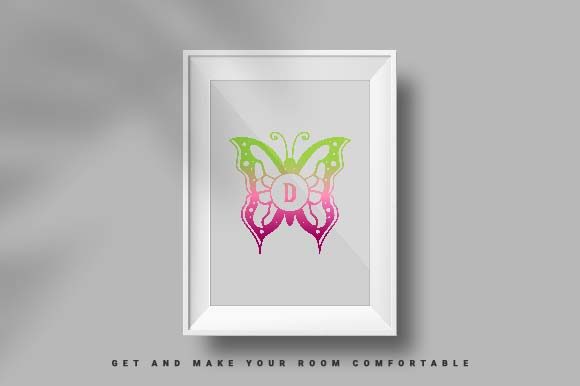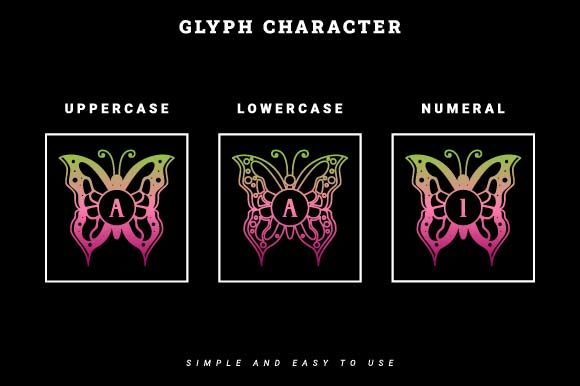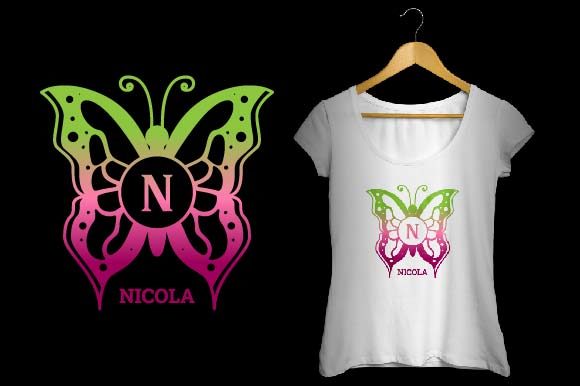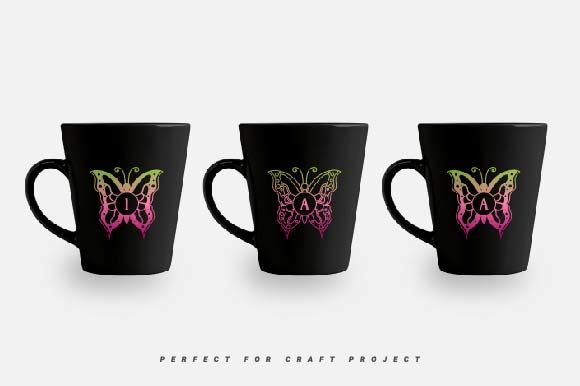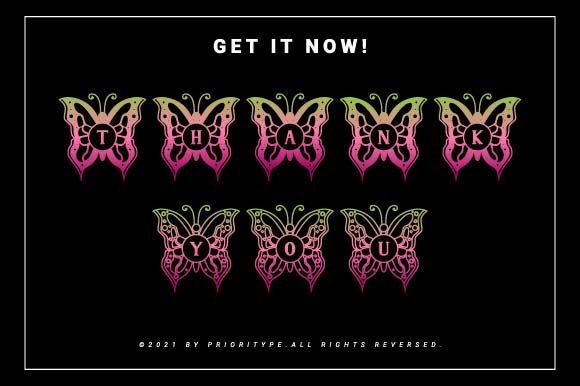
Introduction to Merissa Monogram Font
Do you ever find yourself lost in a sea of ideas, searching for that perfect design element to bring your creative project to life? For many designers, it’s that one special touch that sets their work apart from the rest. I recall a moment when I stumbled upon a beautiful font featuring delicate butterflies, and I knew I had to have it. That’s when I discovered the enchanting Merissa Monogram Font, a sweet decorative font that’s about to become your new favorite design resource.
With its lovely butterfly ornaments and authentic feel, the Merissa Monogram Font is perfect for designers looking to add a touch of elegance and whimsy to their high-quality designs. Whether you’re working on a wedding invitation, a beautiful stationary art piece, or a cute greeting card, this font is sure to impress. And the best part? It’s available for free download, making it an accessible design resource for creatives of all levels.
Key Features of Merissa Monogram Font
- Unique Monogram Style: The Merissa Monogram Font offers a distinctive and elegant design, perfect for creative projects that require a touch of sophistication.
- High-Quality Design: This font is designed with precision and care, ensuring that it looks great on any background, including transparent backgrounds.
- Easy to Customize: With its elegant design and versatility, the Merissa Monogram Font is easy to customize and pair with other design elements to create a unique look.
Honest Review: Merissa Monogram Font
I recently stumbled upon the Merissa Monogram Font and I’m excited to share my honest thoughts on this design resource. Overall, I was impressed with the high quality and versatility of this font.
- ✨ Beautifully crafted monogram designs that can be used in various creative projects, from wedding invitations to social media graphics.
- ⚠️ Limited character set, which may not be suitable for longer text-based projects.
- ⚠️ Some users may find the font a bit too ornate, which could make it difficult to read in certain contexts.
Overall, I think the Merissa Monogram Font is a great addition to any designer’s toolkit. With its high quality and creative possibilities, it’s a valuable resource for anyone looking to add a touch of elegance to their design projects.